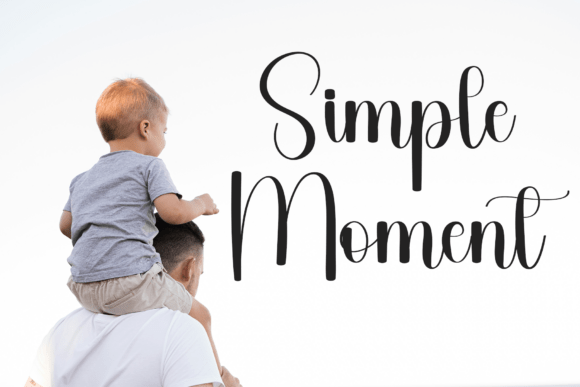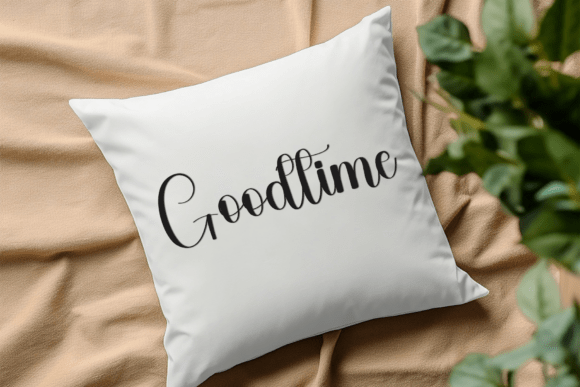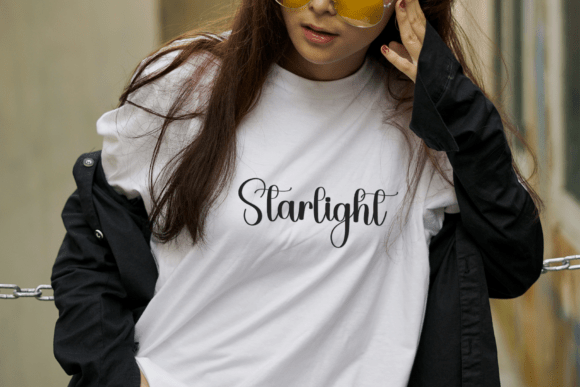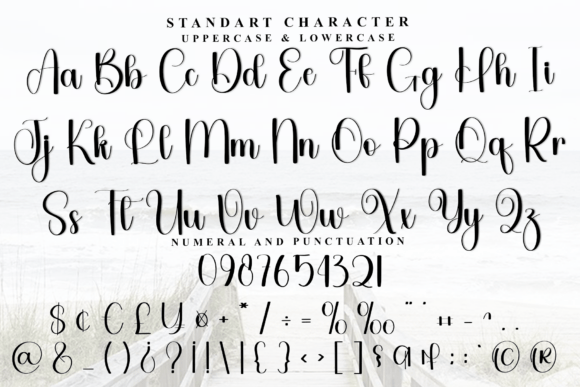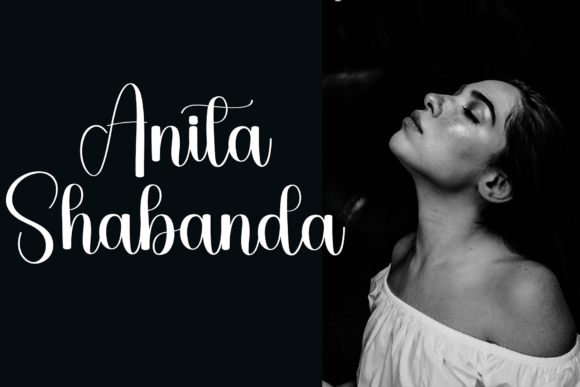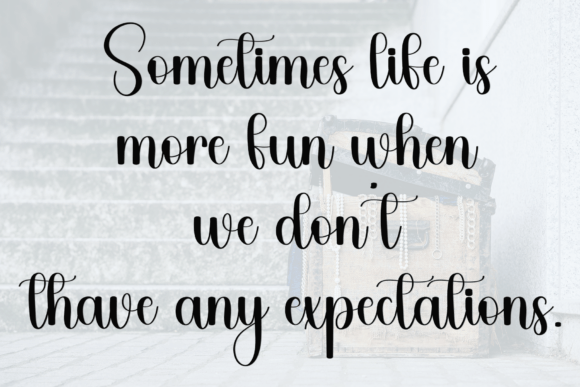
Introduction to Fatherly Font
Have you ever stared at a blank page, trying to bring your creative vision to life, only to be met with a sea of generic fonts that fail to capture the essence of your design? As designers, we’ve all been there – searching for that perfect font that adds a touch of magic to our projects. For me, that moment came when I stumbled upon the Fatherly Font, a beautiful and timeless handwritten font that breathed new life into my creative endeavors.
What sets Fatherly Font apart is its unique blend of elegance and charm, making it the perfect choice for designers seeking a high-quality design resource that adds a personal touch to their work. Whether you’re working on a branding project, creating eye-catching logos, or crafting inspiring quotes, Fatherly Font is sure to elevate your design to the next level.
Key Features of Fatherly Font
- Unique, hand-drawn design perfect for creative projects and personal expressions
- Designed with a fatherly, playful touch, adding a touch of warmth and personality to any creative project or design
- Perfect for use in greeting cards, social media graphics, and other creative projects where a unique, hand-drawn font is desired
Honest Review: Fatherly Font
As a designer, I’m always on the lookout for high-quality design resources that can elevate my creative projects. The Fatherly Font is one such resource that caught my attention. Here’s my honest review.
- ✨ High-quality font with a unique and stylish design.
- ✨ Suitable for a wide range of creative projects, from brochures to social media graphics.
- ⚠️ Limited font styles and sizes, which may not be ideal for complex designs.
The Fatherly Font is perfect for:
- Creating a family-friendly brand identity.
- Designing children’s educational materials.
- Developing a personal blog or website.